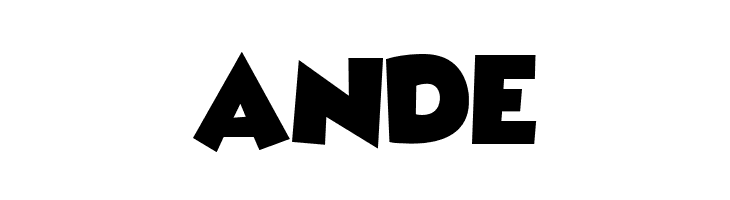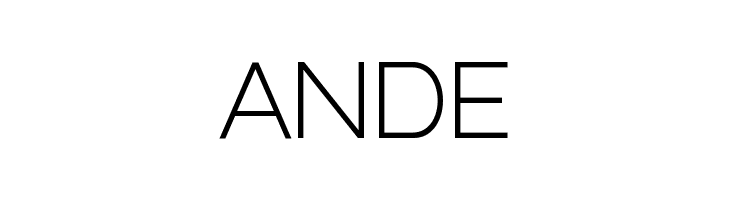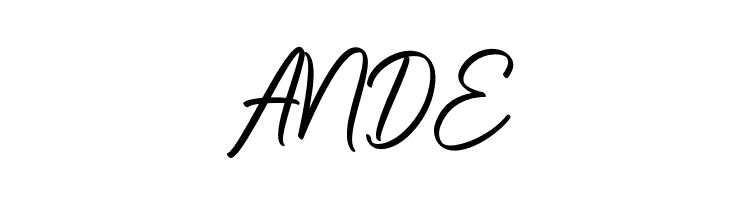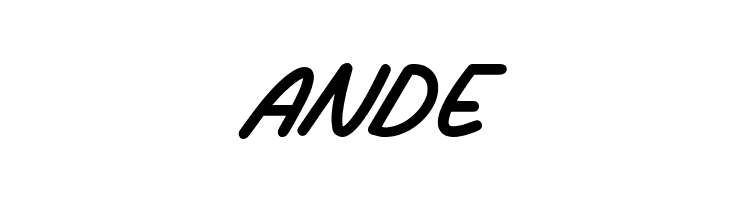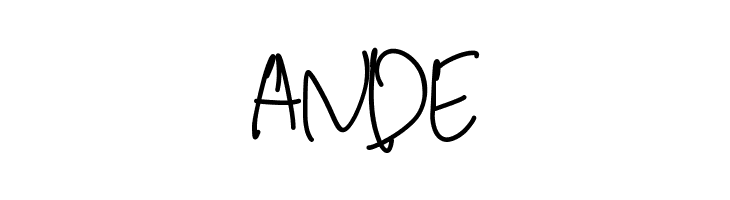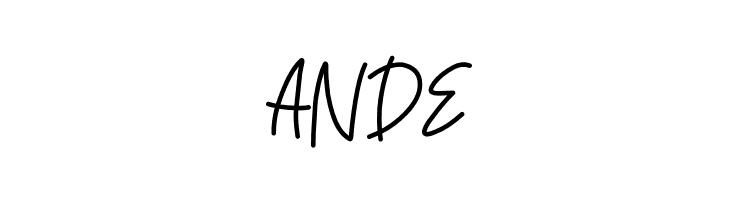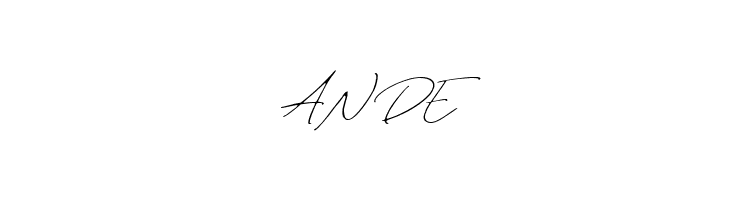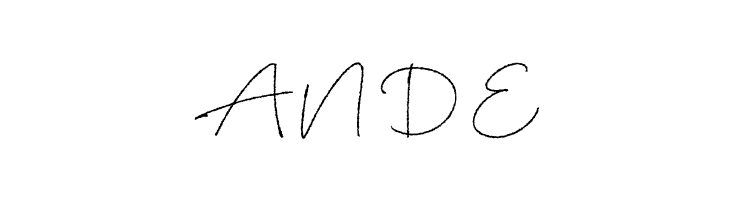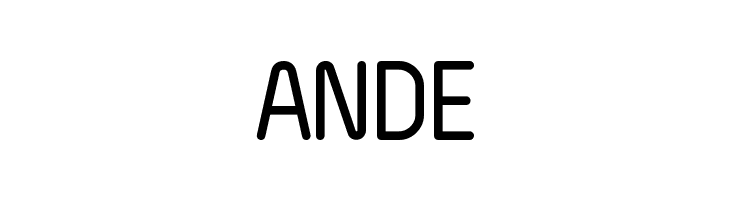
A graceful, flowing script font with a natural handwritten style.
A playful, casual handwritten font with dynamic, flowing strokes.
A playful, casual handwritten font with fluid, organic strokes.
A bold, decorative font with a vintage, three-dimensional style.
A bold, italic serif font with dynamic slant and strong presence.
A smooth, flowing script font with a natural handwriting style.
A playful, flowing script font with smooth, rounded edges and consistent stroke width.
A flowing, cursive font with elegant, handwritten characteristics.
A casual, handwritten font with a playful and artistic style.
A bold, playful font with thick, rounded shapes and a whimsical retro style.
A bold, playful font with a whimsical, cartoonish style.
A bold, playful font with irregular shapes and a whimsical, cartoonish style.
A modern, rounded typeface with a friendly and approachable design.
A bold, rounded font with a modern and friendly style.
A bold, rounded, and italicized font with a playful and modern style.
A modern, rounded font with clean lines and uniform stroke width.
A modern, rounded, light italic font with a clean and elegant style.
A modern, rounded font with uniform height and geometric shapes.
A rounded, italicized font with a modern and friendly style.
A bold, elegant script font with flowing, interconnected characters.
A bold, hand-drawn font with a playful and whimsical style.
A bold, modern sans-serif font with clean lines and uniform strokes.
A modern, light sans-serif font with clean lines and balanced proportions.
A modern, clean sans-serif font with balanced spacing and smooth lines.
A sleek, ultra-thin font with a modern, geometric design.
A lively and expressive script font with fluid, dynamic strokes.
A bold, playful handwritten font with thick strokes and a casual style.
A lively and expressive handwritten font with fluid strokes and dynamic movement.
A bold, brush-style font with expressive, hand-painted strokes.
A smooth, flowing script font with elegant, connected letters and medium contrast.
An elegant script font with intricate swashes and flourishes.
A graceful, handwritten script font with a luxurious and artistic style.
A casual, handwritten font with smooth, flowing lines and a personal touch.